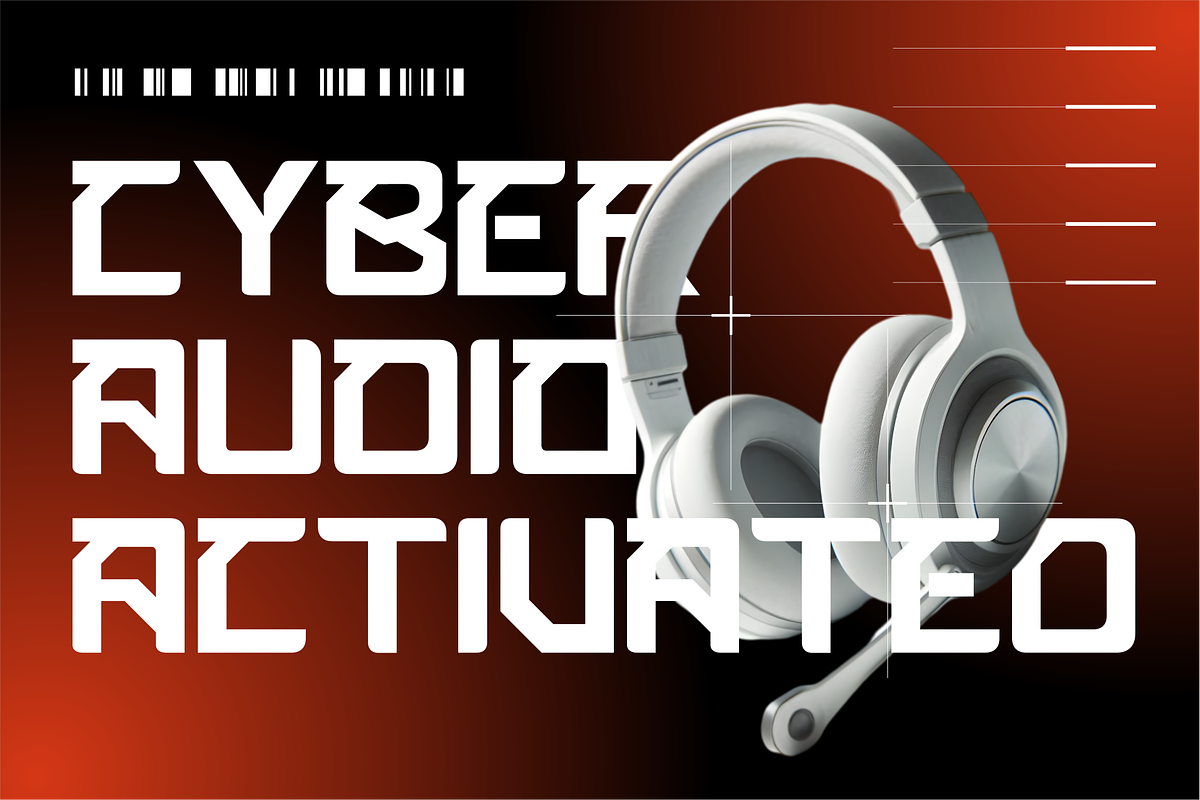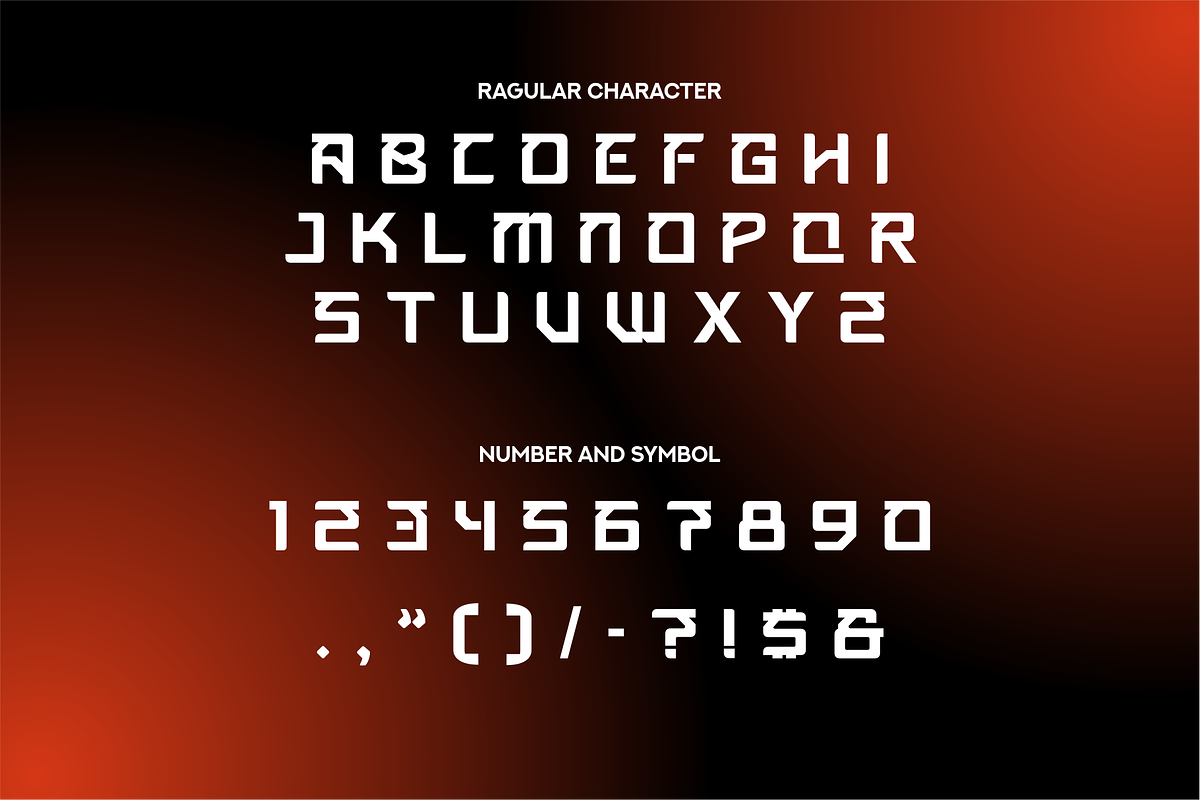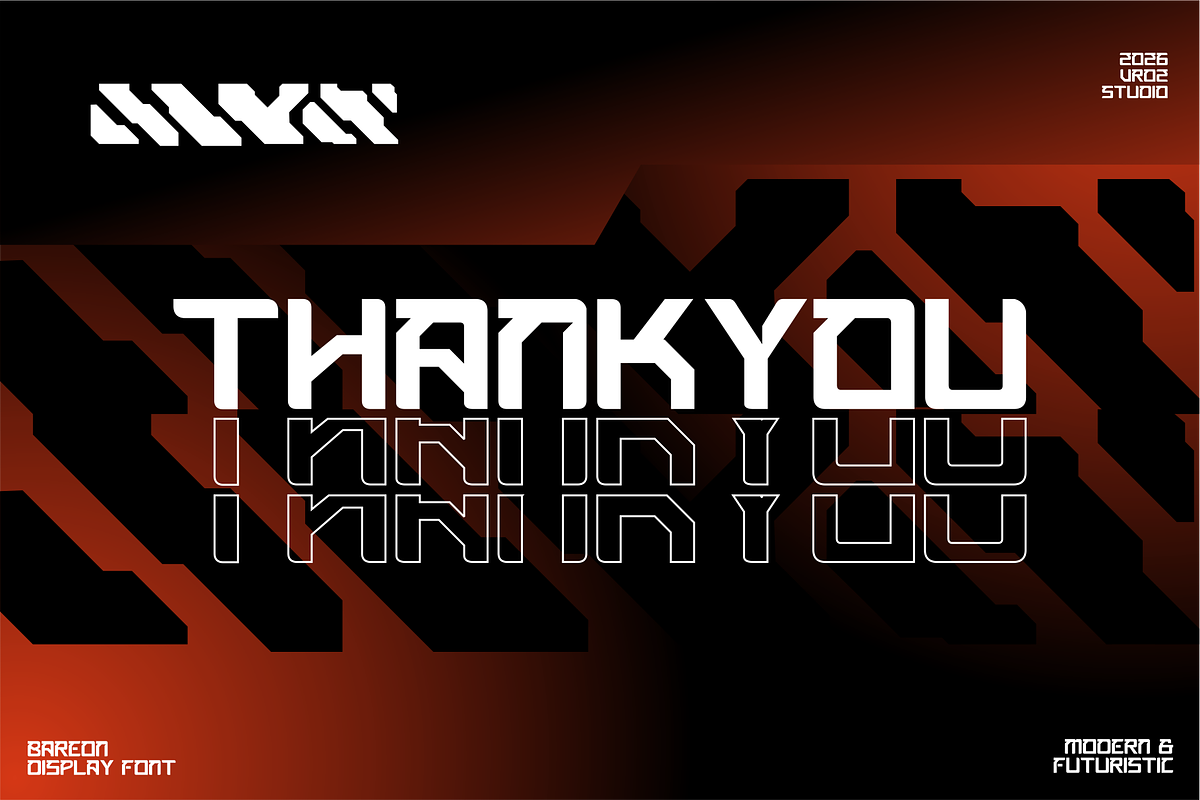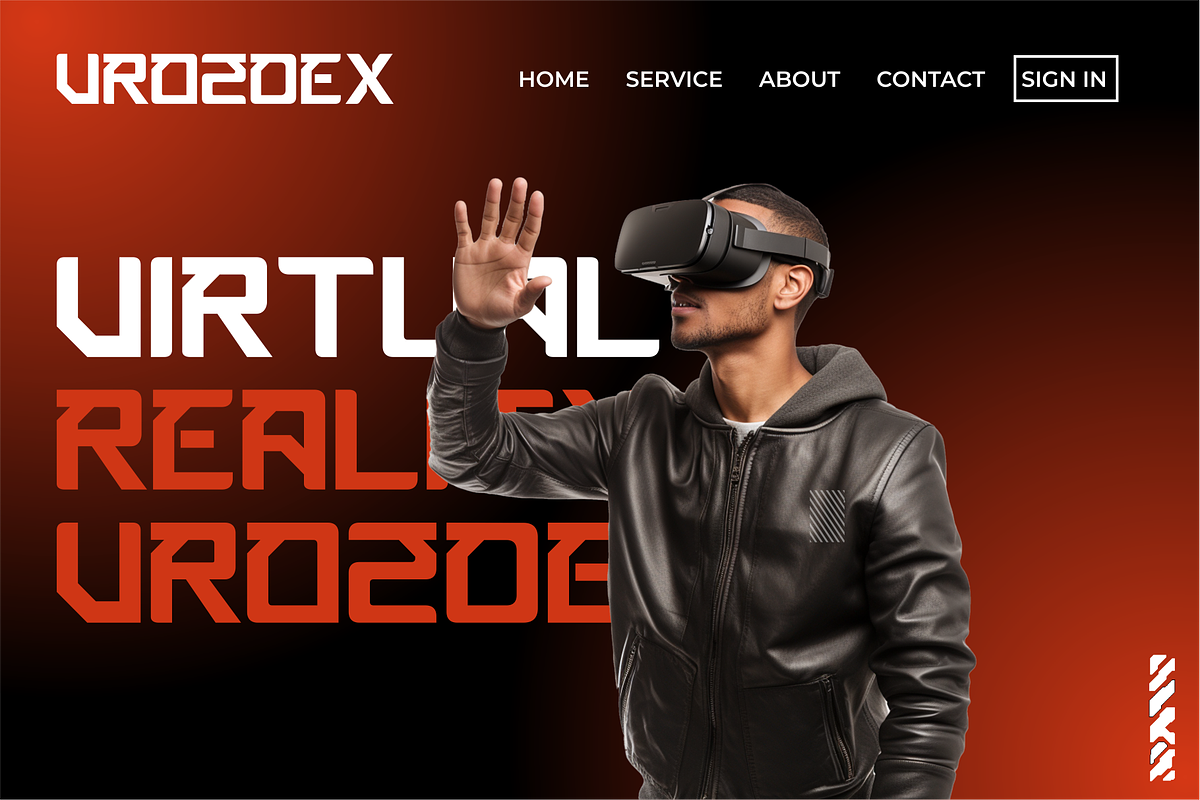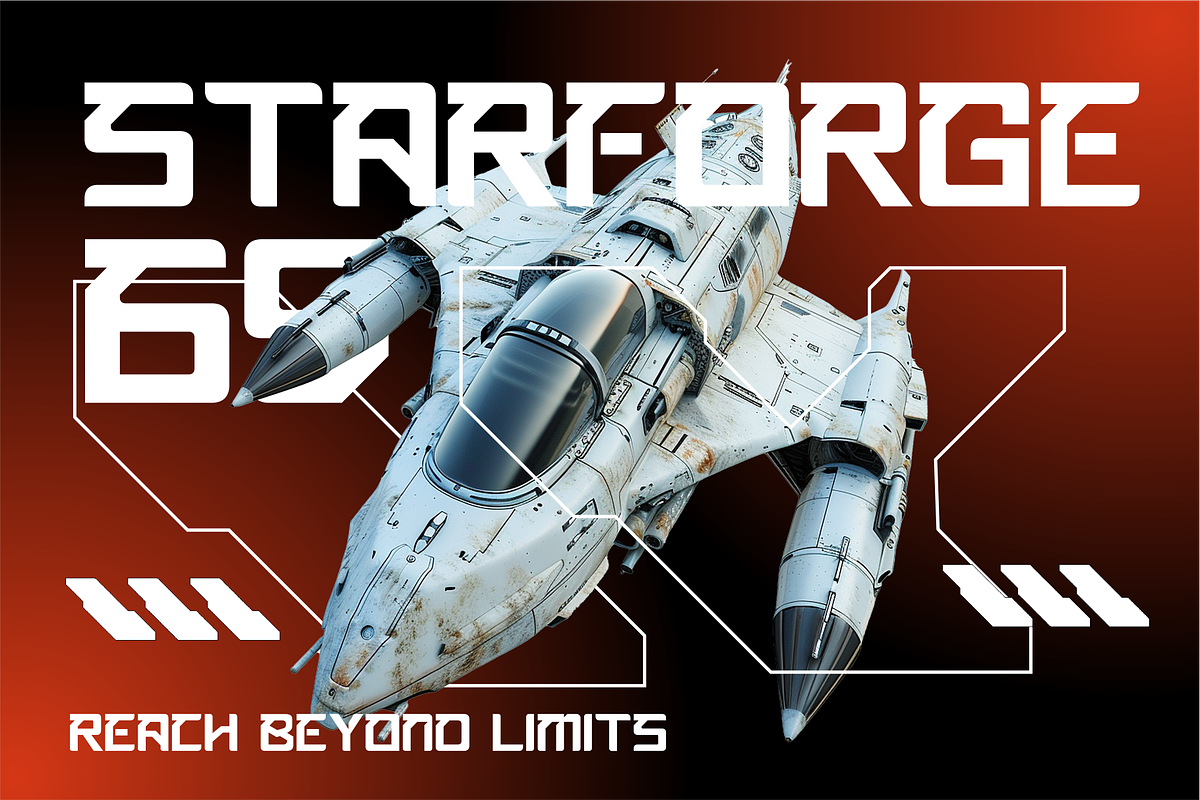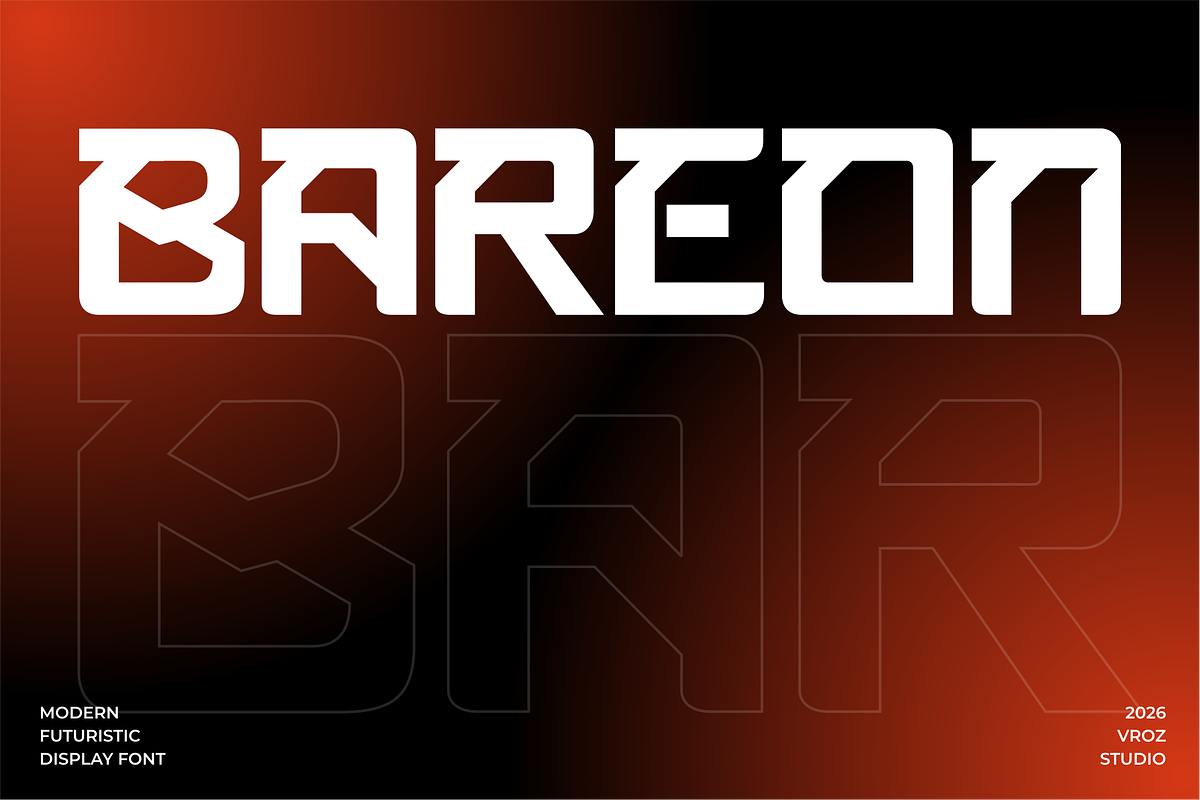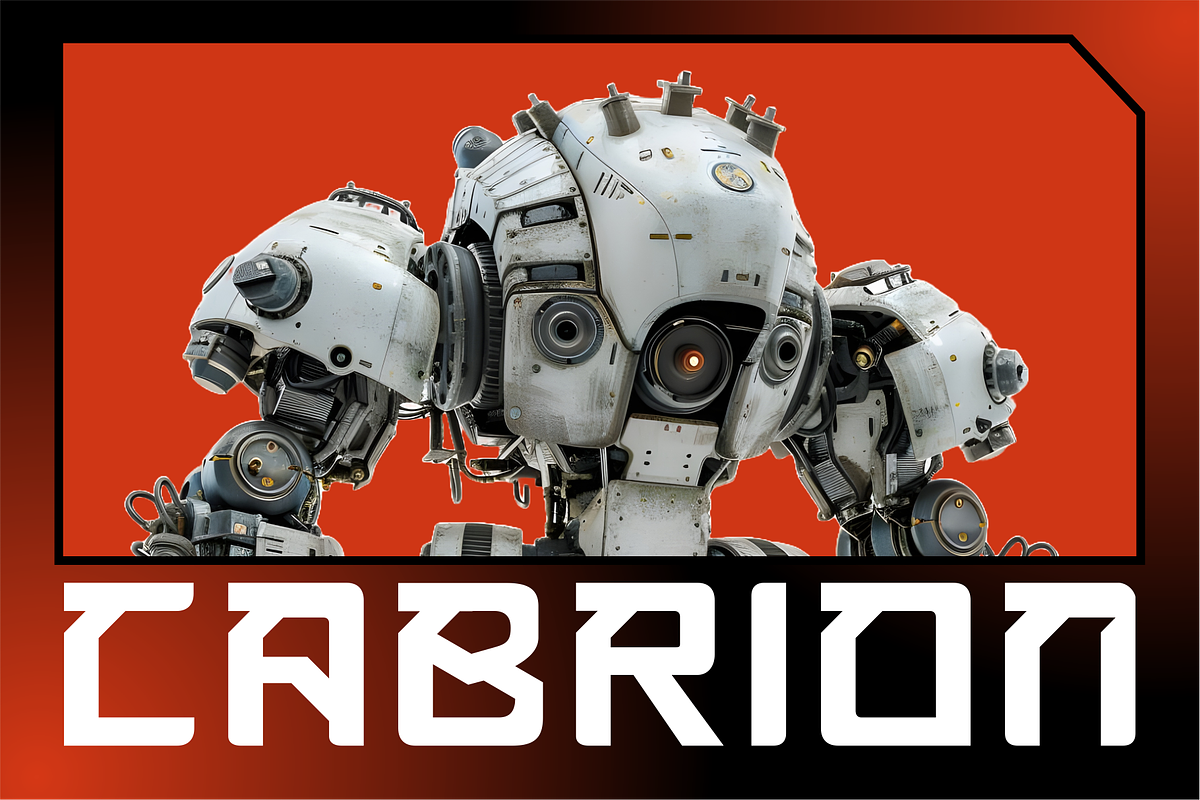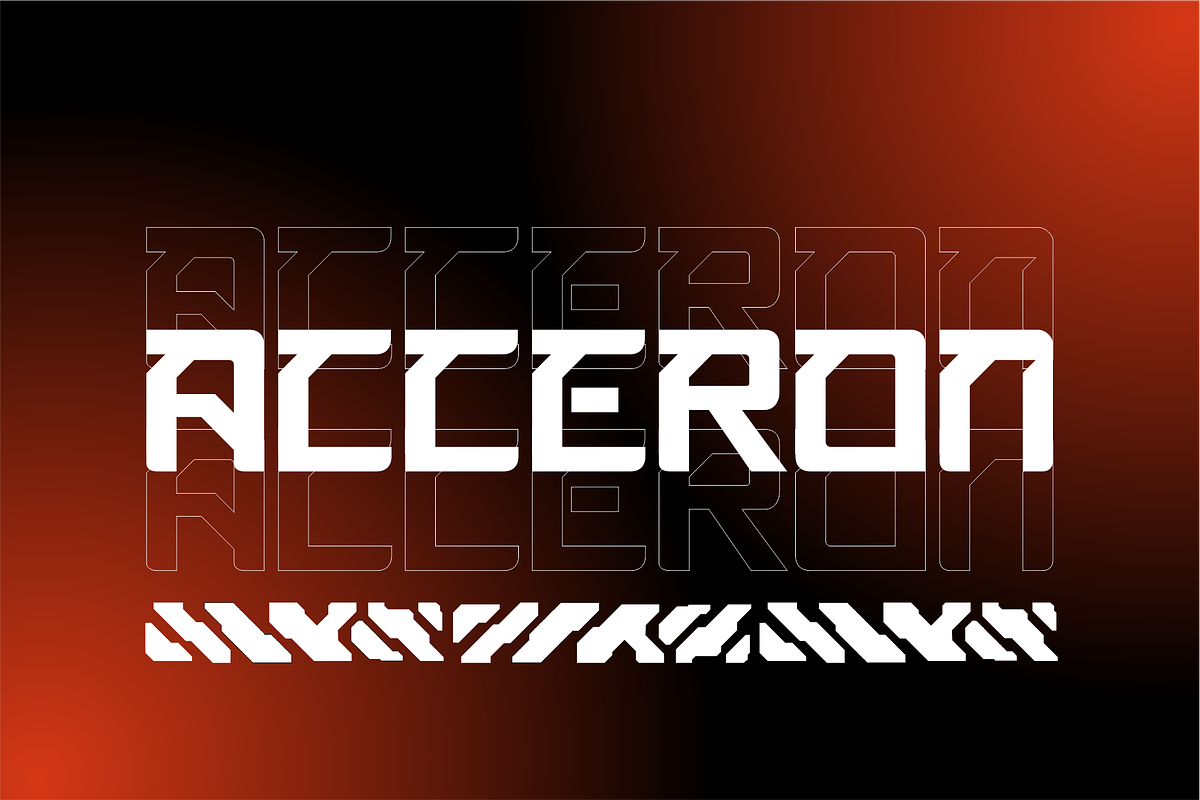
Bareon - Modern Futuristic Display
Bareon – Modern Futuristic Display Typeface
Bareon is a modern futuristic display typeface designed to create a bold, clean, and innovative visual presence. Inspired by contemporary technology, digital culture, and forward-thinking design trends, Bareon delivers a strong futuristic character through sharp geometric forms and precise construction.
Crafted exclusively with uppercase characters, Bareon emphasizes clarity, confidence, and visual impact. Its distinctive letterforms make it ideal for projects that require a modern, technological, and professional appearance while maintaining excellent readability at display sizes.
With its sleek and structured aesthetic, Bareon is perfect for designers seeking a typeface that communicates innovation, strength, and a futuristic vision across both digital and print media.
Bareon Font Features
* Uppercase letters (A–Z)
* Numerals, symbols, and punctuation
Bareon Is Perfect For
* Modern and futuristic branding
* Technology and innovation projects
* Gaming and esports identities
* Sci-fi titles and cinematic posters
* Website headers and digital interfaces
* Corporate branding and startup visuals
* Social media graphics and promotional materials
* Creative display typography